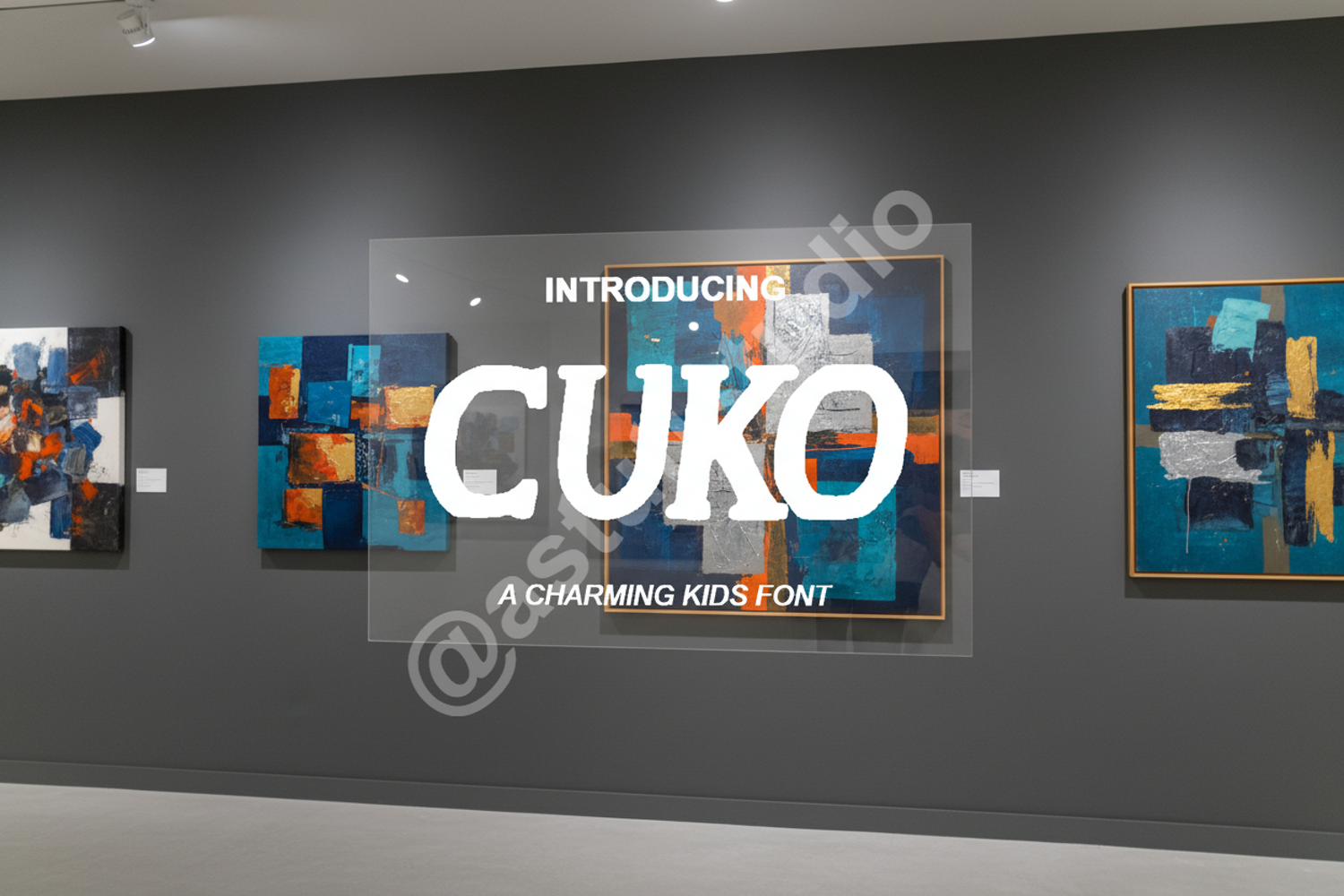
Cuko - Modern Geometric Sans Serif
Cuko
Elevate your creative projects with Cuko, a premium geometric sans serif font that blends modern minimalism with exceptional legibility. Designed for designers who demand precision and style, Cuko offers a clean aesthetic that works beautifully across both digital and print mediums. Its balanced proportions and contemporary feel make it a must-have addition to any professional typography toolkit.
- Comprehensive character set including uppercase, lowercase, and numerals
- Standard punctuation and multilingual support
- Branding and Visual Identity: Create memorable logos and cohesive brand guidelines.
- Social Media Content: Design high-impact graphics for Instagram, Pinterest, and LinkedIn.
- Web Design: Ensure a clean and modern user experience with legible headings.
- Editorial Layouts: Perfect for magazine spreads, book covers, and digital publications.
- Product Packaging: Give your physical products a sophisticated and high-end aesthetic.